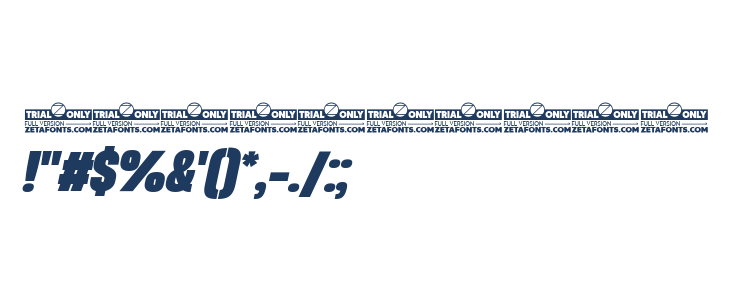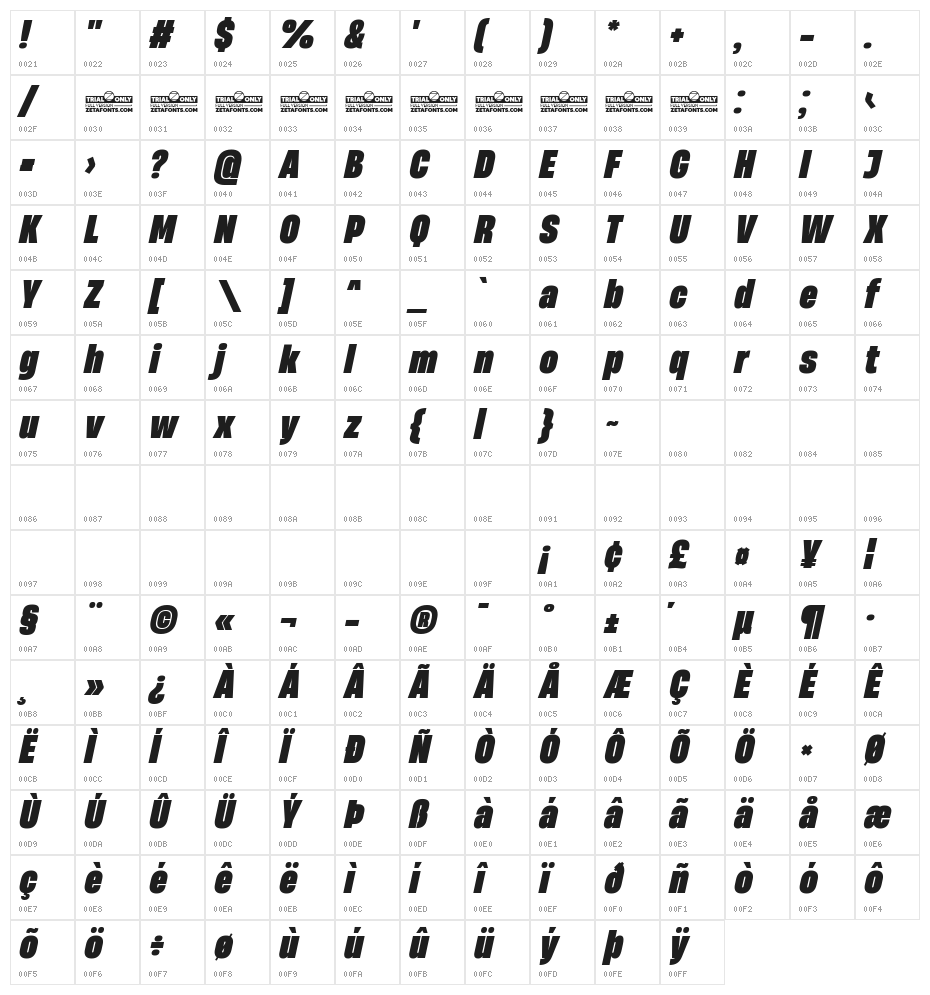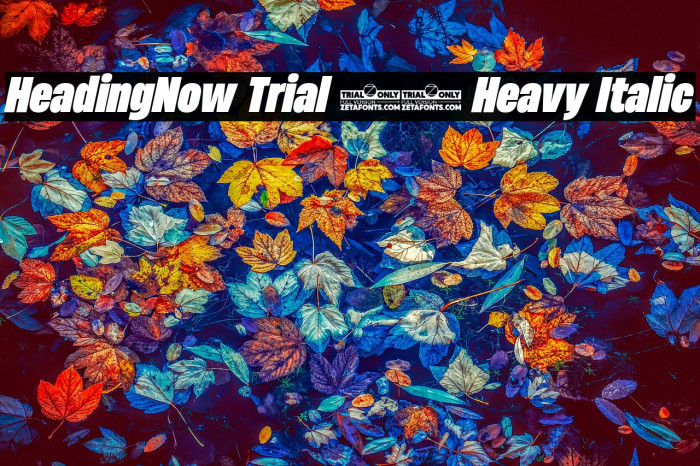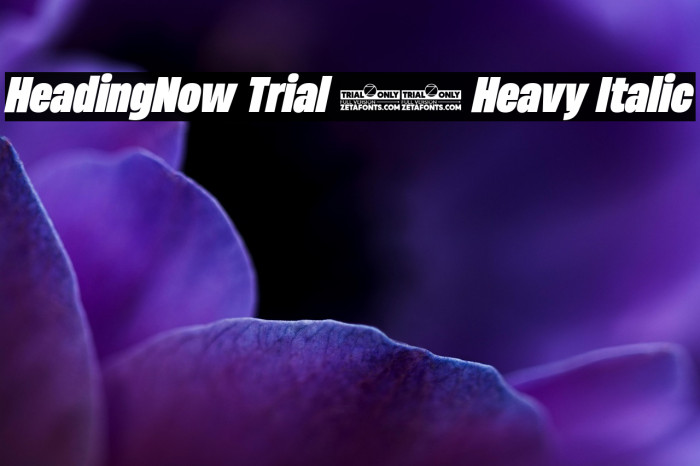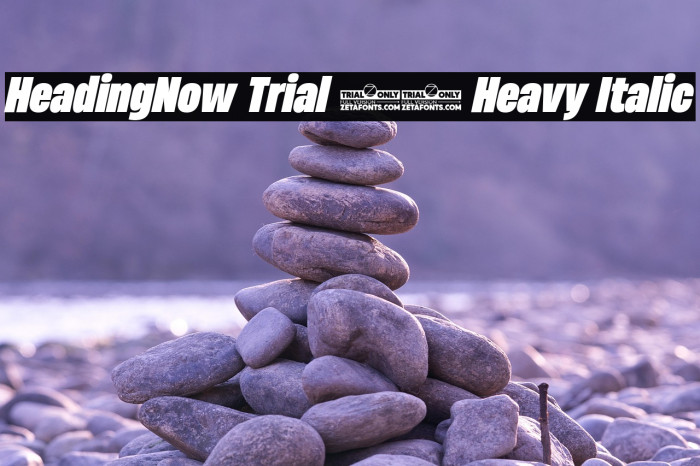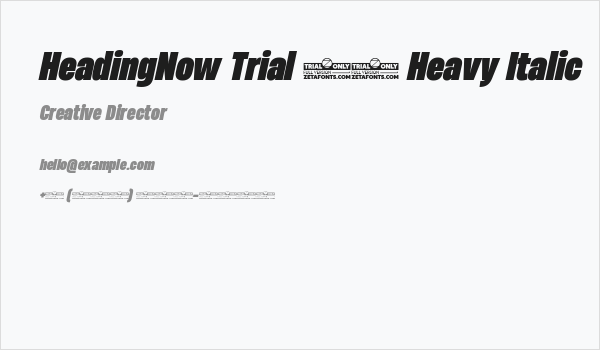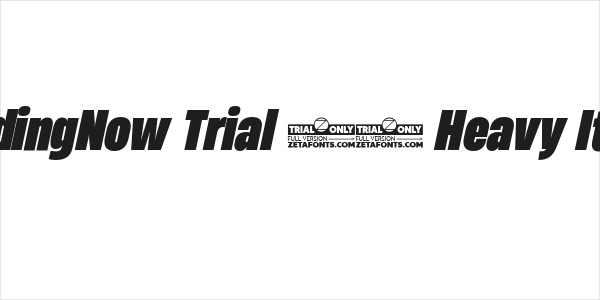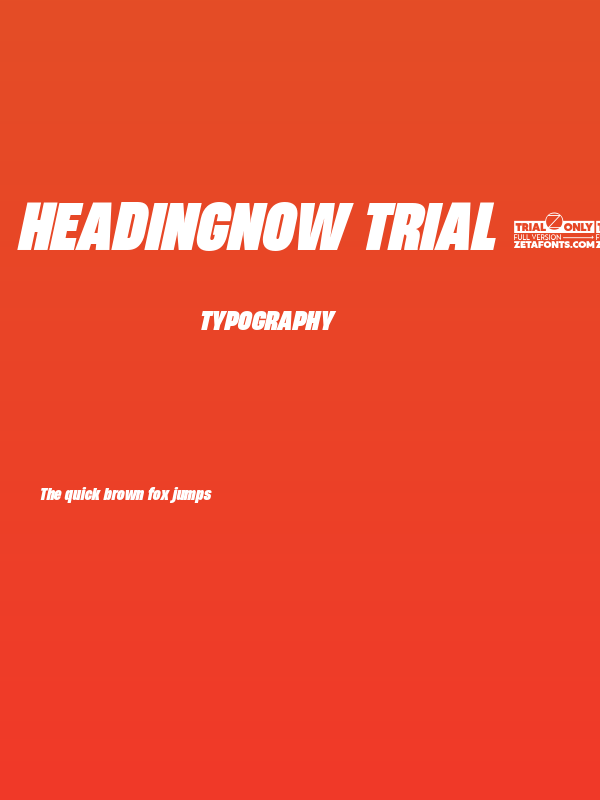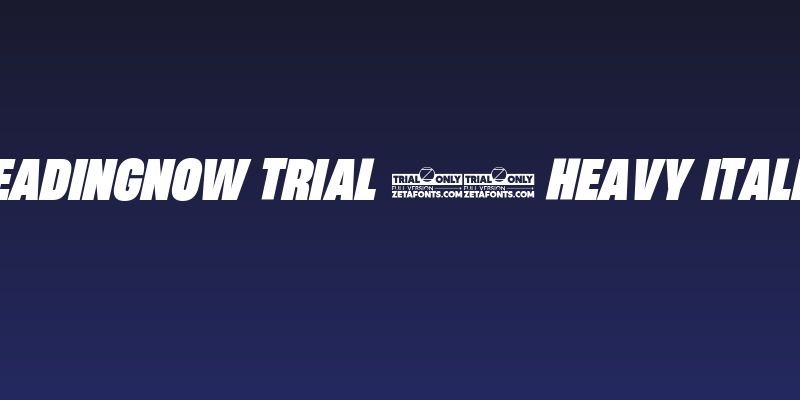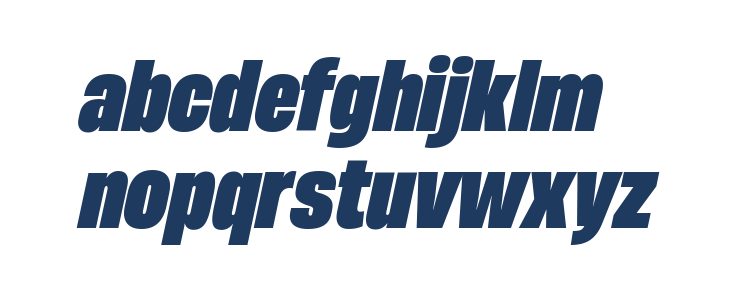
HeadingNow Trial 58 Heavy Italic Font
HeadingNow Trial 58 Heavy Italic Description
This font is a bold and dynamic typeface with a strong presence, characterized by its heavy weight and italic style. The letters are wide and have a slightly condensed appearance, giving them a powerful and impactful look. The strokes are thick, providing high contrast and making the text stand out prominently. The italic slant adds a sense of movement and urgency, making it suitable for attention-grabbing headlines and titles. The font maintains a modern aesthetic with clean lines and a straightforward design, ensuring readability while conveying strength and assertiveness.
| Proposed Projects | Ideal for headlines, advertising, branding, and any project requiring a strong visual impact. |